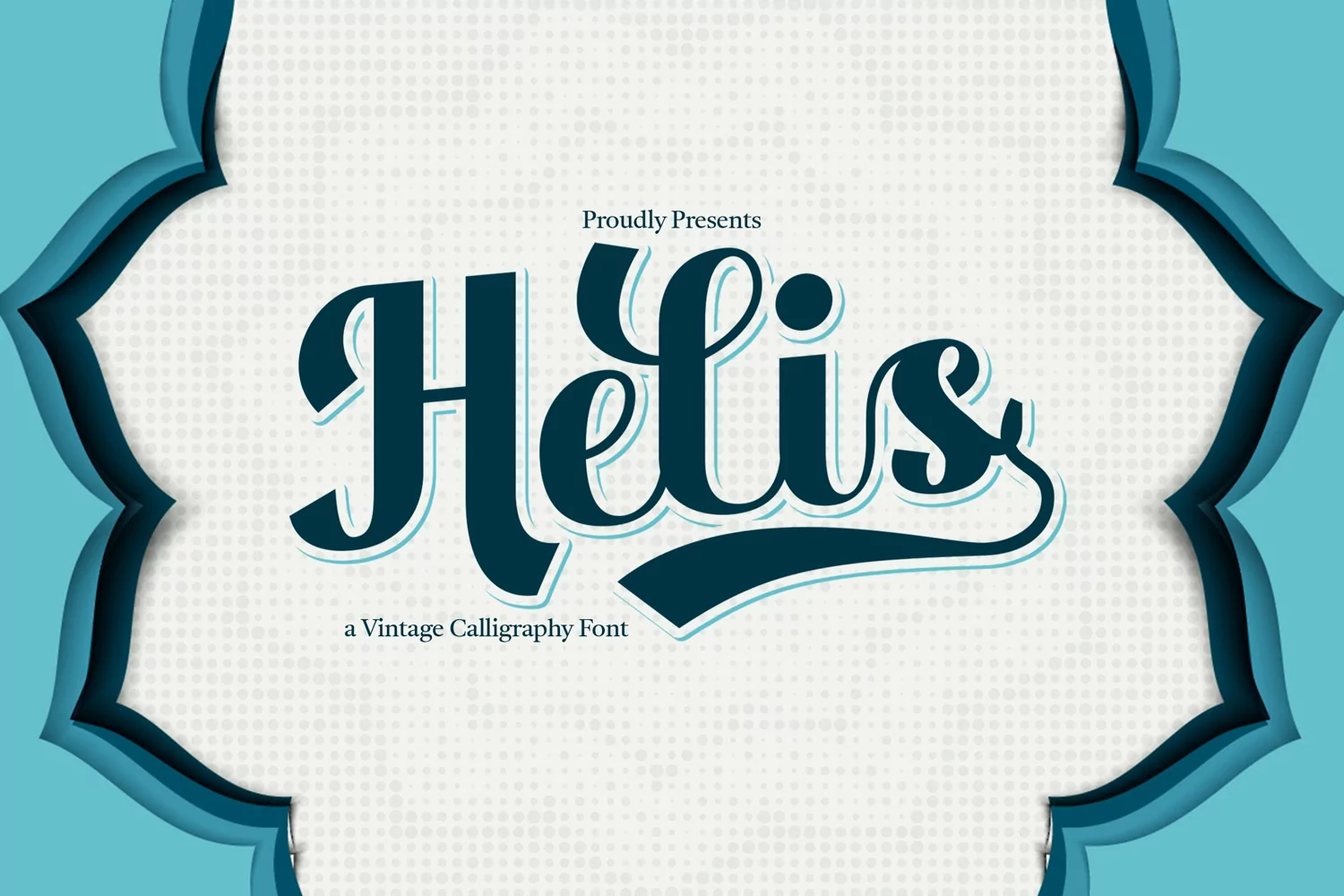
Helis is a inspired by the famous retro typography designs form the late 60's till the 70's with strong identity for a retro design, vintage, pop art and etc.